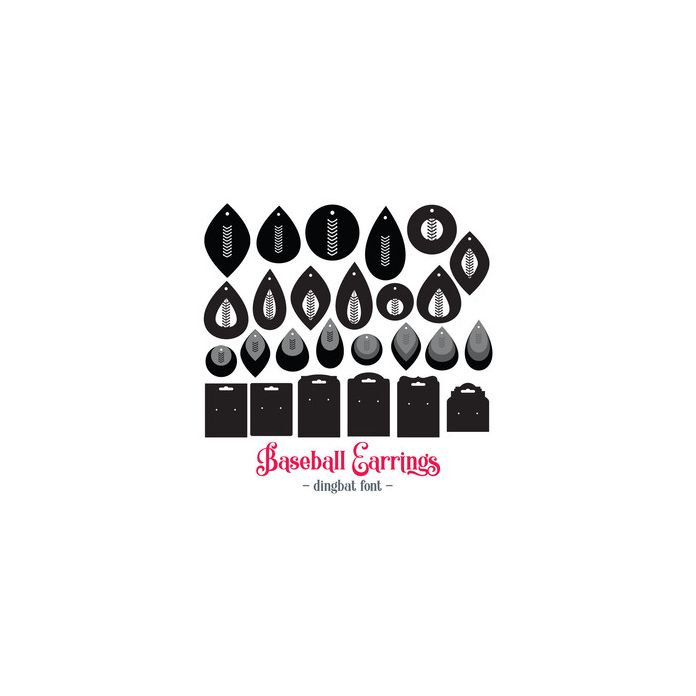
Baseball Stitch earring dingbat font. With single and layered earrings embellished with baseball stitching and backing cards to create your own unique jewellery!